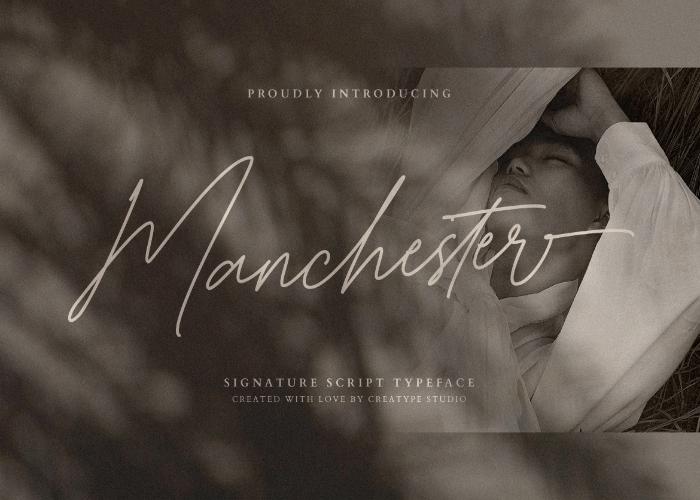
Manchester Signature Font – Freebie
Manchester Signature Style Font
Hunting for a signature font with a natural & classy feel? Then “Manchester Signature Style Font” is the perfect fit for you!
This freebie includes a full set of gorgeous uppercase and lowercase letters, numerals, and a large range of punctuation & ligatures. It has versatile uses like branding, wedding invites and cards, social media posts, advertisements, product packaging, product designs, labels, photography, watermark, and any projects that need handwriting taste.
Manchester Signature Font Preview Images
Manchester Signature Font Greeting Card Preview Image
Manchester Font Text Preview Image
Manchester Signature Font Invitation Card Preview Image
Manchester Font Template Preview Image
Manchester Font Ligatures Preview Image
Manchester Font Product Design Preview Image
Manchester Font Character Set 1 Preview Image
Manchester Font Character Set 2 Preview Image